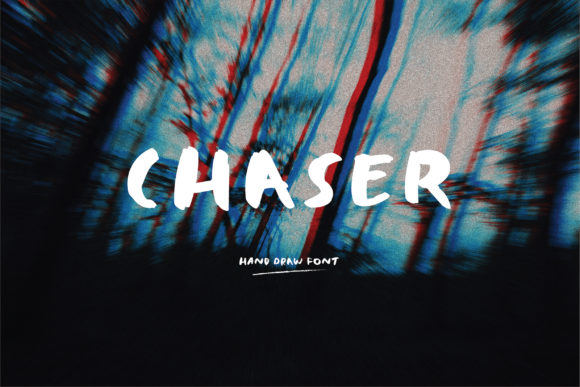
Unleash your creativity with Chaser, the ultimate font for captivating designs that leave a lasting impression. Crafted by the illustrious Fontana Studio, Chaser is a display font that embodies the spirit of modernity, empowering you to create visually stunning masterpieces. Its playful and energetic vibe adds a touch of whimsy to your creations, making them impossible to ignore.
Step into a world of endless possibilities with Chaser. Whether you're designing posters that demand attention, flyers that ignite excitement, or headline ads that command action, Chaser is your secret weapon. Its versatility extends to logos that leave an indelible mark, branding that exudes confidence, and business cards that make a statement. Transform ordinary mugs and shirts into extraordinary expressions of your style with Chaser.
With Chaser, you're not just downloading a font; you're acquiring a creative superpower. Its playful nature invites you to experiment, to push the boundaries of design and create works that evoke joy and inspire action. Each stroke, each curve of Chaser is meticulously crafted to engage and captivate your audience, leaving them with a lasting impression that lingers long after they've encountered your creations.
Don't settle for ordinary fonts that fade into the background. Embrace Chaser, the font that commands attention, ignites imagination, and propels your designs to new heights. Let Chaser be your guide into a world of visual enchantment, where creativity knows no bounds and every project becomes a masterpiece.